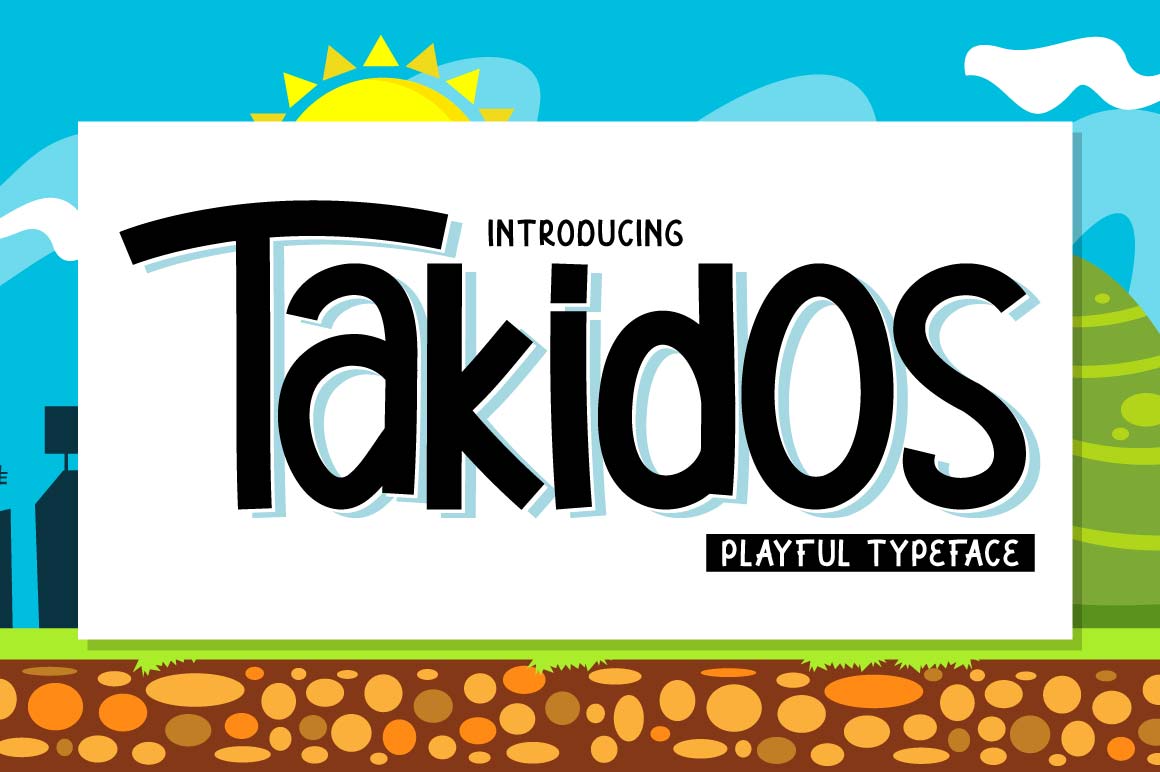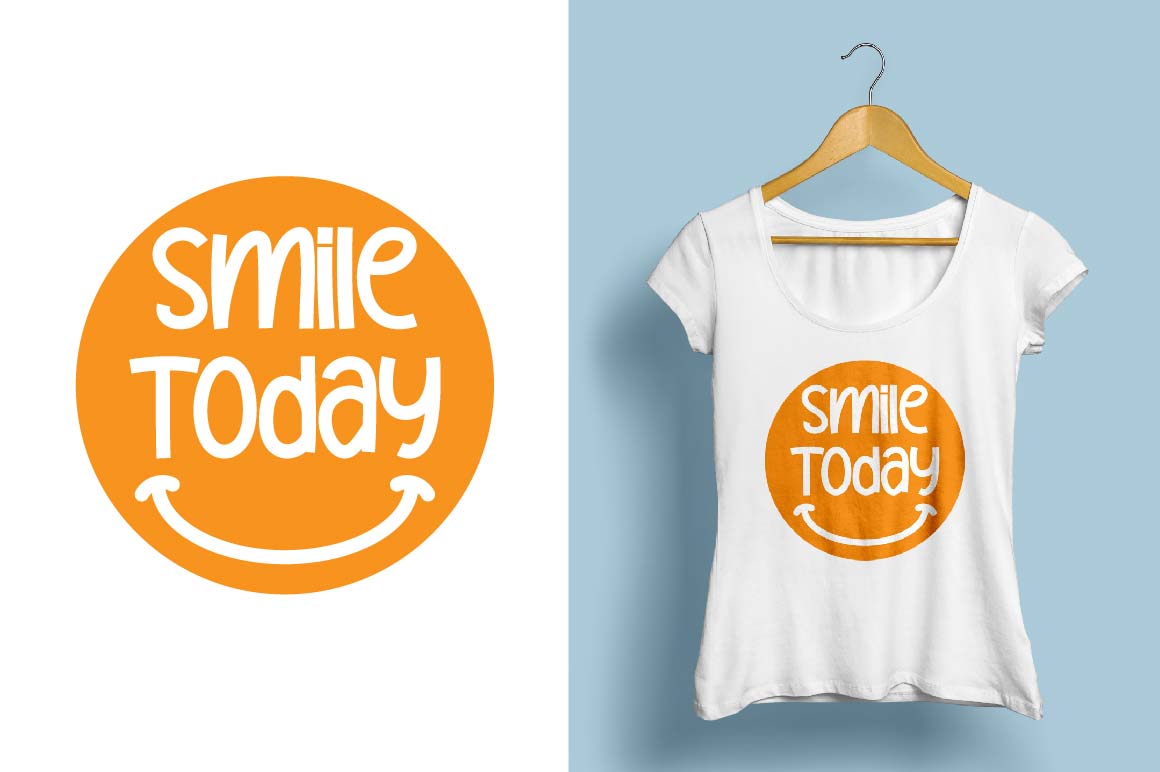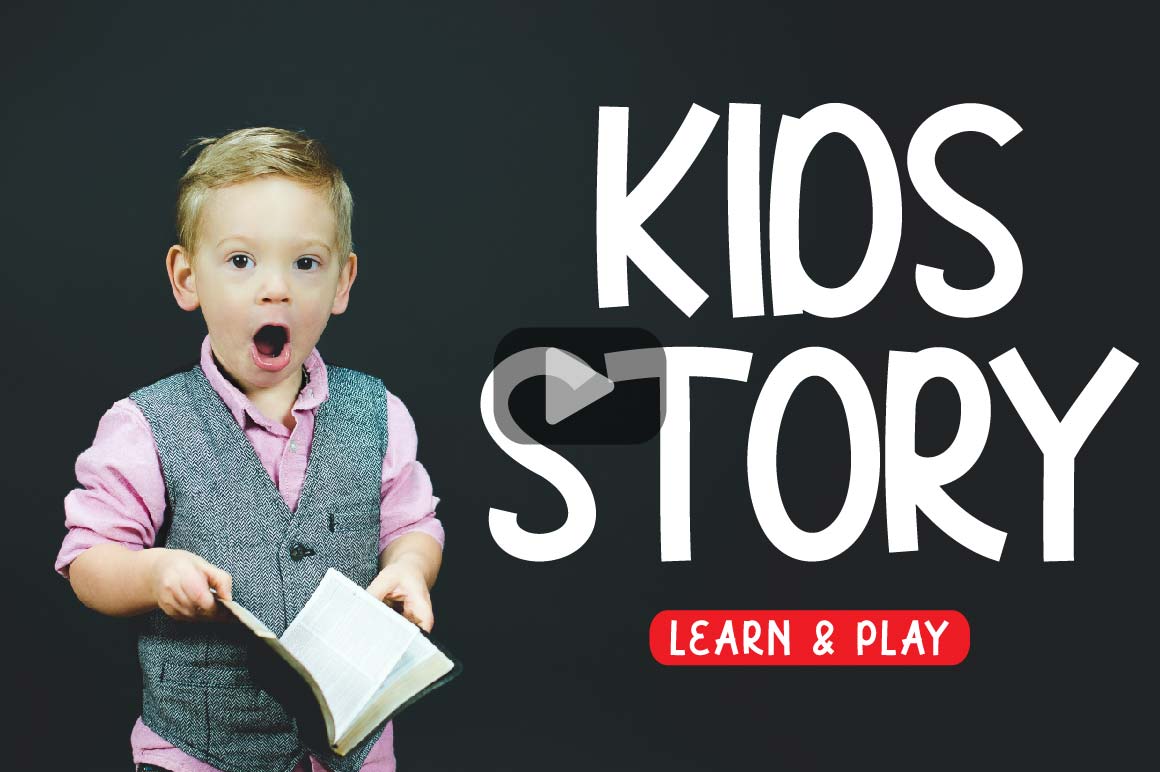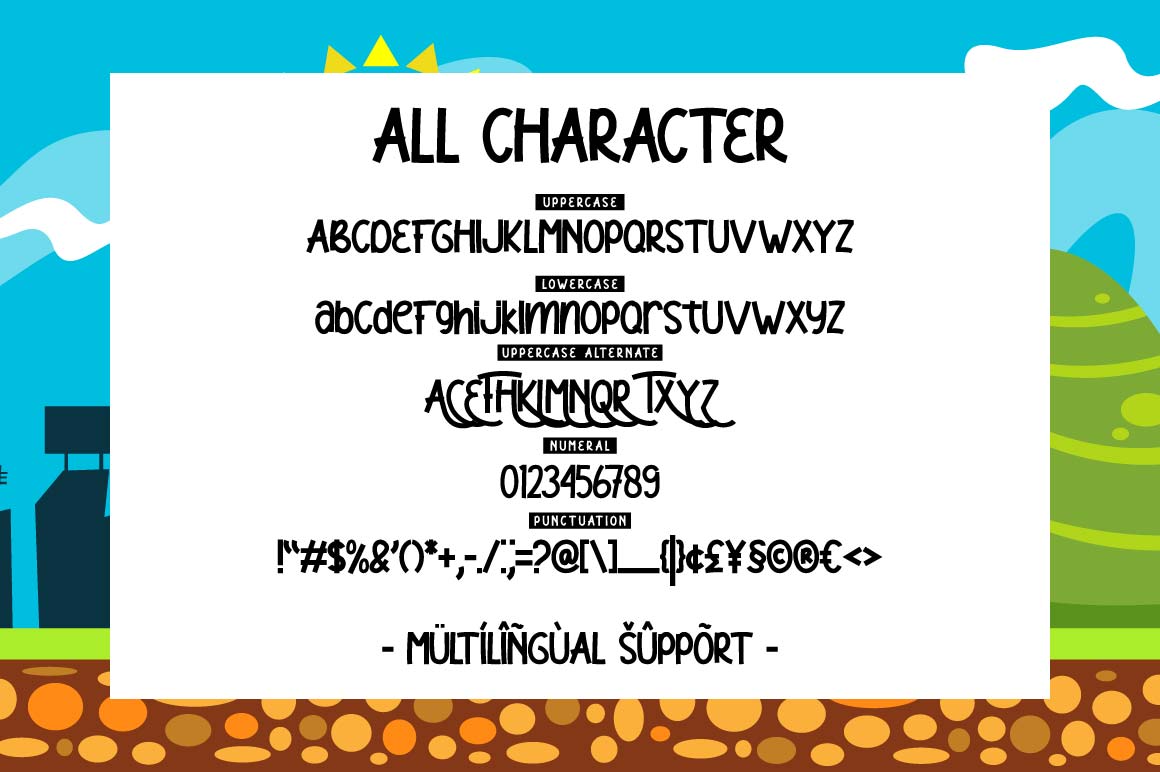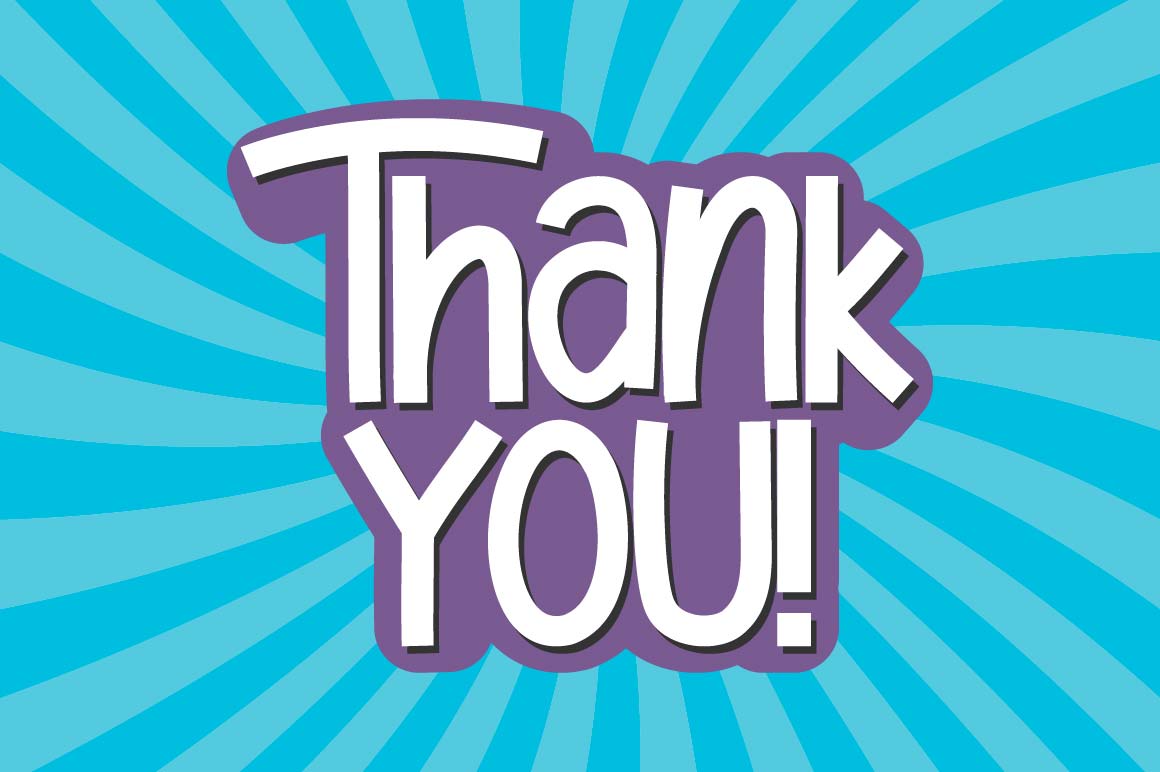
A bold and unique font is here to accompany your project, it can be applied to t-shirts, logos, video covers, book covers, food labels, and much more. See some of the previews above for an illustration.
-Uppercase -Lowercase -Numeral -Punctuation -Multilingual -Alternate